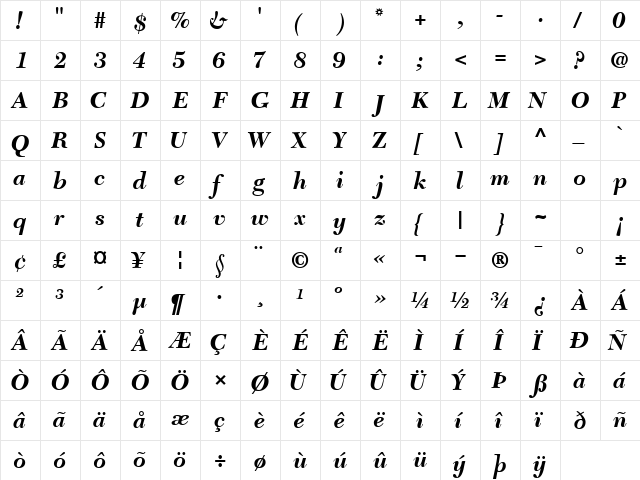
TycoonBlackSSK Italic
Design Context for TycoonBlackSSK Typeface
TycoonBlackSSK is a composed and adaptable typeface that performs quietly and consistently across a wide range of design contexts. Its italic angle brings a sense of urgency and motion to the letterforms.
Pro Tip: Try TycoonBlackSSK for annotation and caption copy alongside an upright companion — the contrast in angle creates a dynamic but ordered typographic system.